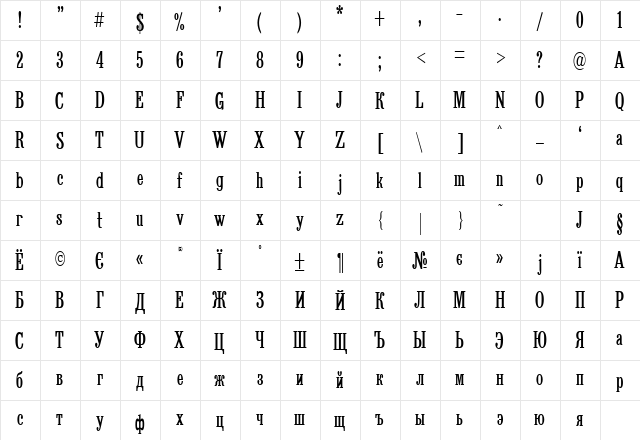
BruskovayaCTTNarrow Normal
Design Context for BruskovayaCTTNarrow Typeface
BruskovayaCTTNarrow is a composed and adaptable typeface that performs quietly and consistently across a wide range of design contexts. Its narrow stance lets it pack a punch even in space-constrained designs.